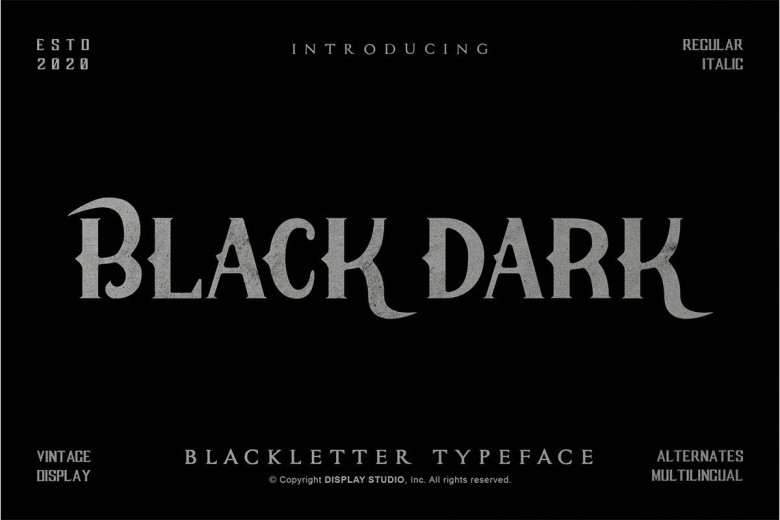
Black Dark Blackletter Display Typeface
Black Dark Blackletter Display Typeface is new font from Display Studio with classy, elegant and vintage feel character set. To create the beautiful combination, just mix the uppercase and lowercase then mix with the alternative glyphs.
The Black vision includes a full set of capital and lowercase letters, as well as multi-lingual support, currency figures, numerals, punctuation & some extra glyphs. This font is free for PERSONAL USE. Link to purchase full version and commercial license: HERE